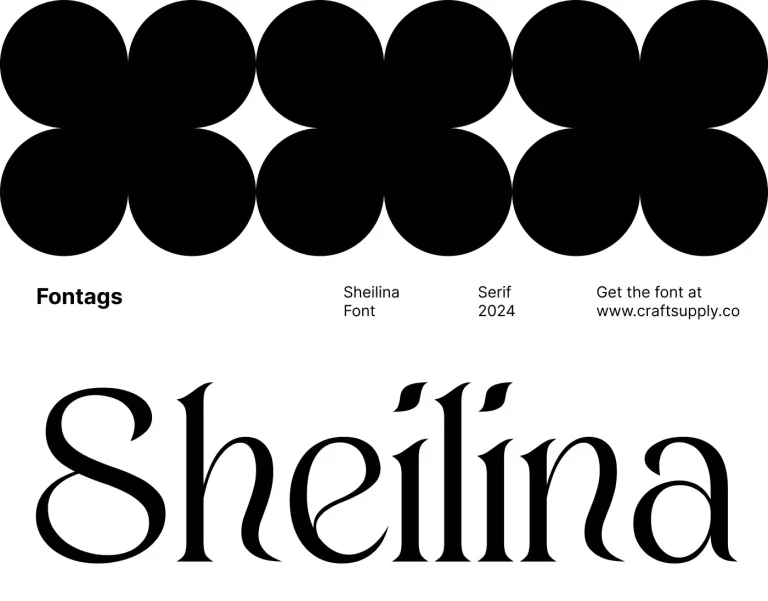
Sheilina
Sheilina draws inspiration from the Art Nouveau movement, embracing its flowing and organic forms. The font captures the display essence of Art Nouveau’s unique aesthetic with a modern twist. Sheilina features a distinct flow and elegance that sets it apart. Its graceful…
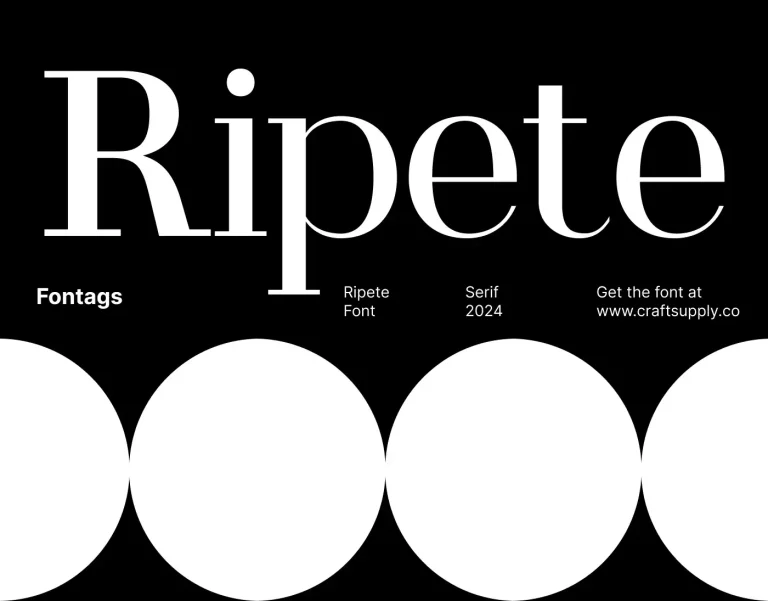
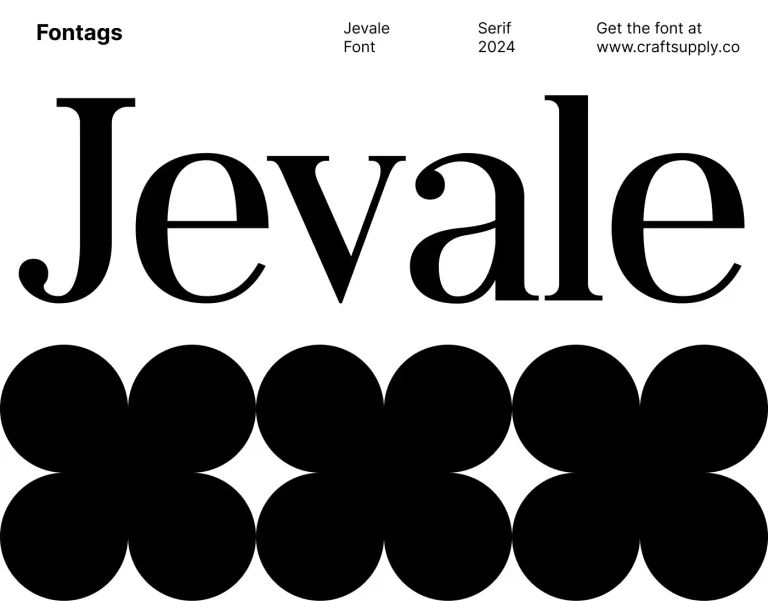Ripete
Ripete epitomizes high-contrast serif typography, exuding an air of sophistication and refinement. Its sleek lines and sharp contrasts lend a modern touch to any project. With its modern aesthetic, This font redefines elegance for the digital age. Each character is…
Jevale
Jevale exudes timeless charm with its classic serif design, suitable for both body text and titles. Its versatility ensures seamless integration into various design projects. Whether it’s conveying important information in body paragraphs or making a bold statement in titles, Jevale adapts…
Elmaro
Elmaro presents a cutting-edge display font with sleek, modern lines inspired by the iconic aesthetics of science fiction film aliens. Drawing inspiration from the otherworldly visuals of alien spacecraft and technology, Elmaro offers a unique and innovative take on contemporary typography.
Colence
Colence embodies the whimsical charm of fluffy clouds, infusing your designs with a playful and captivating aesthetic inspired by nature’s wonders. Designed as a display typeface, Colence excels in grabbing attention and conveying a sense of fun and curiosity, making it ideal…
Cavella
Cavella presents a sleek display font characterized by its low-contrast strokes. The font exudes a modern aesthetic, perfect for contemporary design projects seeking a minimalist touch display. Adding intrigue to its design, Cavella incorporates subtle smoke effects into select strokes. Inspired…
Stellen
Stellen is a futuristic font that draws inspiration from the life of cyborgs, envisioning a world where man and machine seamlessly integrate. Its sleek and dynamic display design reflects the aesthetics of futuristic technology. With its sharp angles, geometric shapes, and futuristic…
Forena
Forena – Round Serif presents a sleek and contemporary serif typeface, blending modern sophistication with timeless charm. With its high contrast design, Forena exudes an air of elegance and refinement, making it ideal for projects that require a touch of sophistication.
Dazney
Dazney presents a striking sans serif typeface characterized by its high contrast and contemporary shapes. Its sleek and modern design makes it an ideal choice for various display purposes. With its clean lines and sharp edges, Dazney exudes sophistication and versatility. It…
Darvine
Darvine presents a tall serif typeface with a sleek and contemporary aesthetic. Its modern shape adds a touch of sophistication to any display project. Tailored for display use, Darvine shines in various contexts, from headlines to branding. Its tall stature and refined…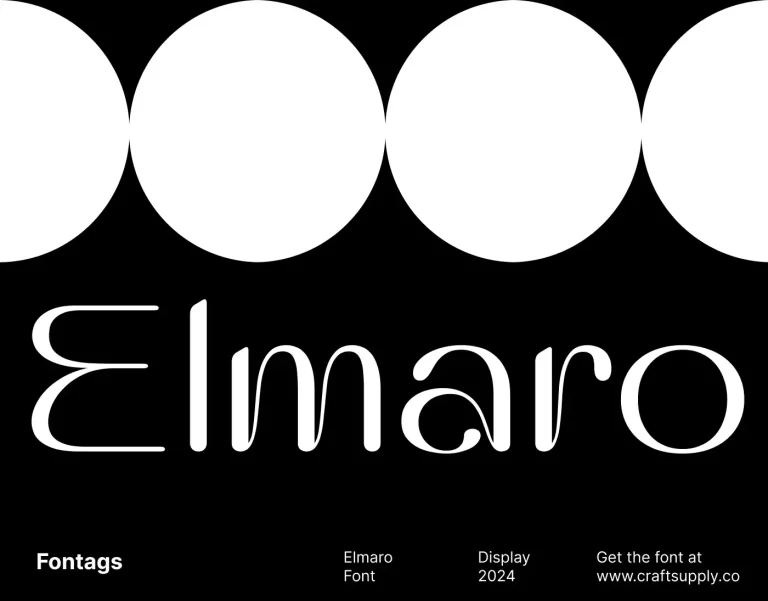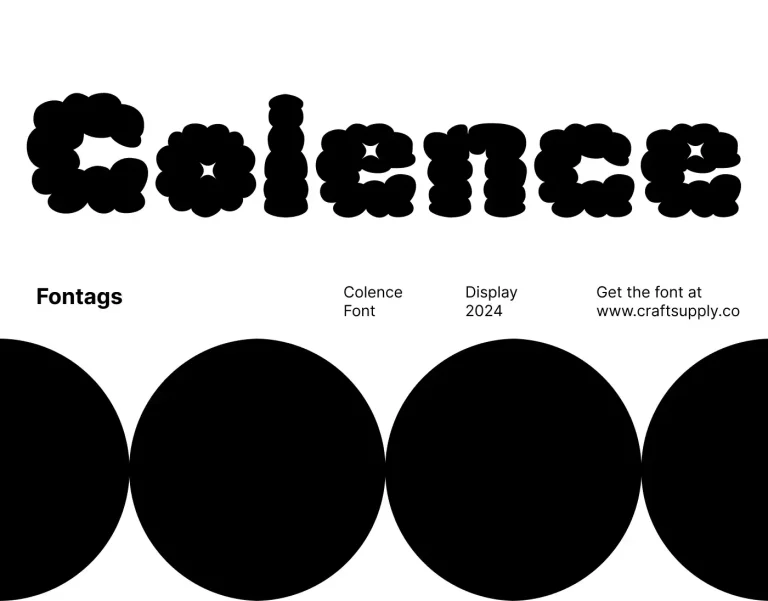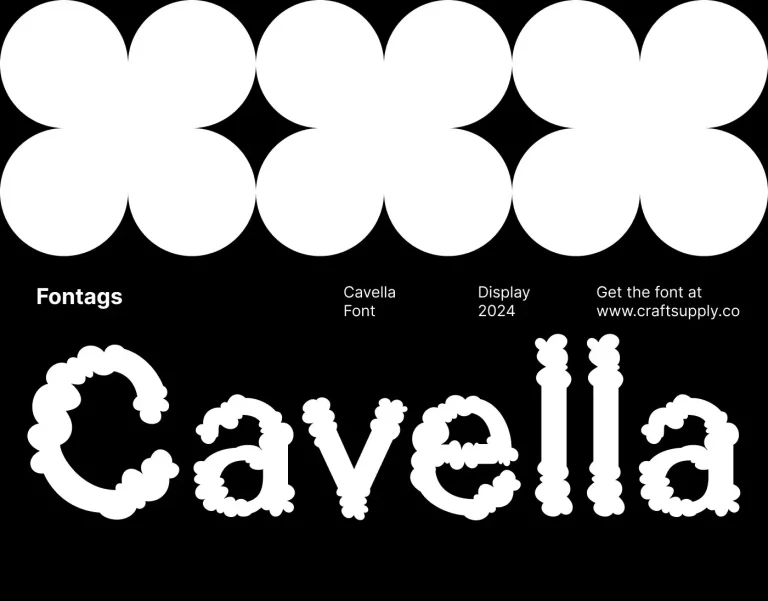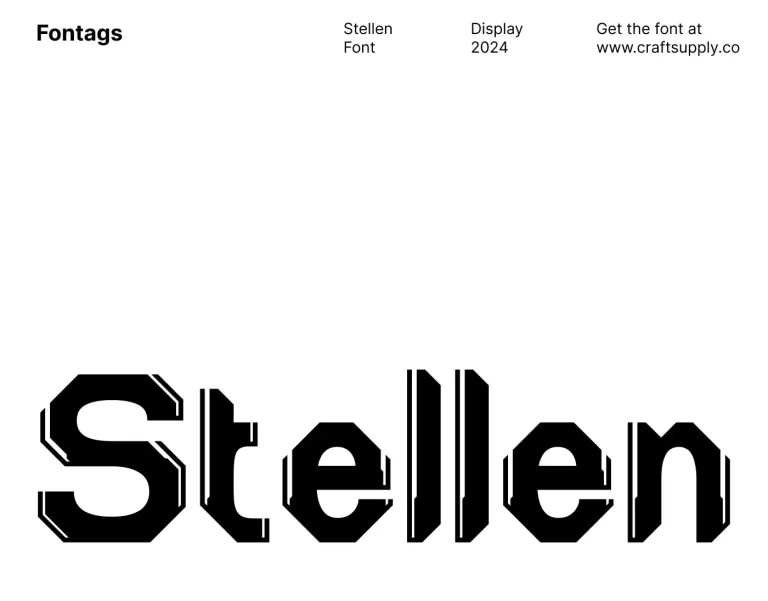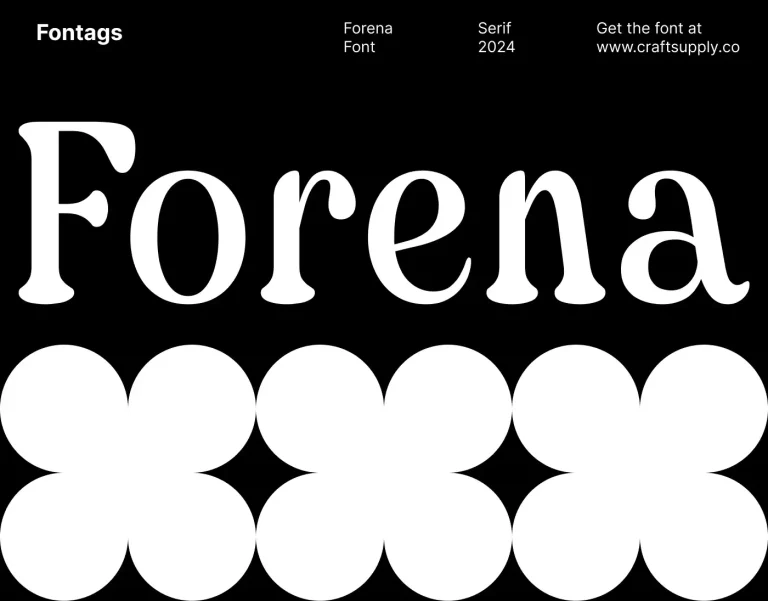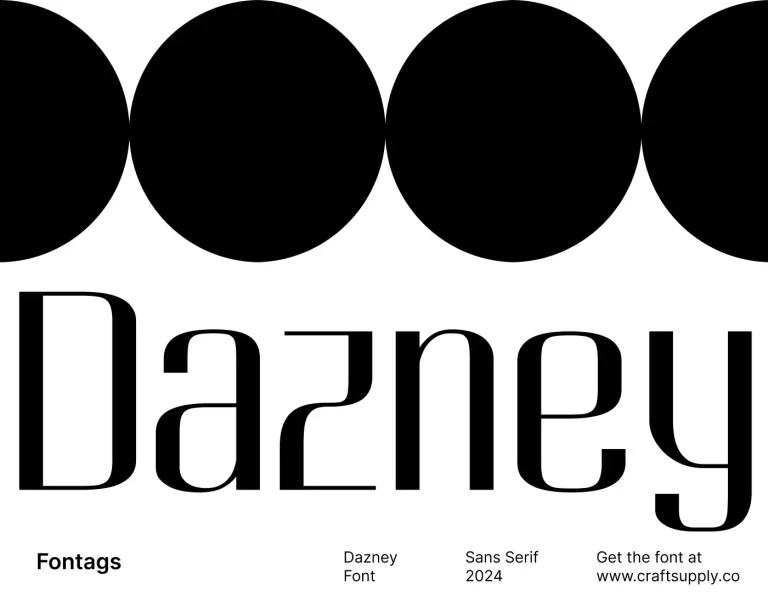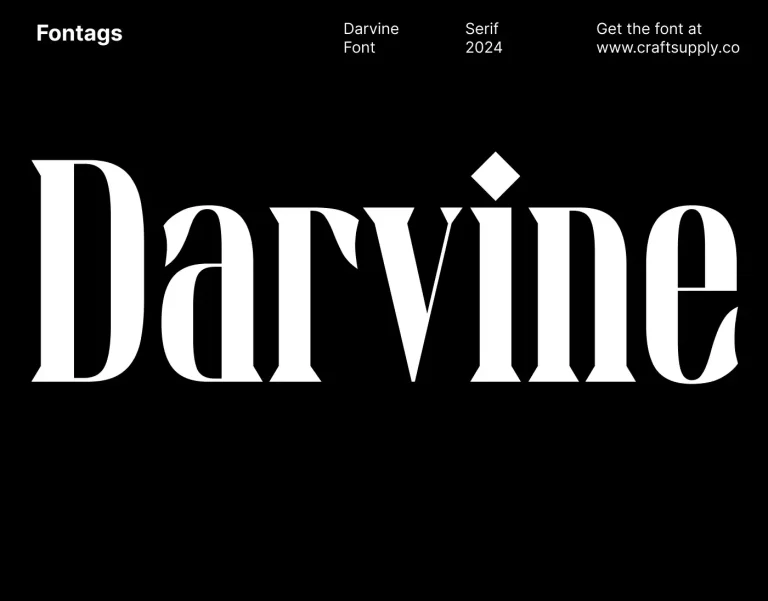